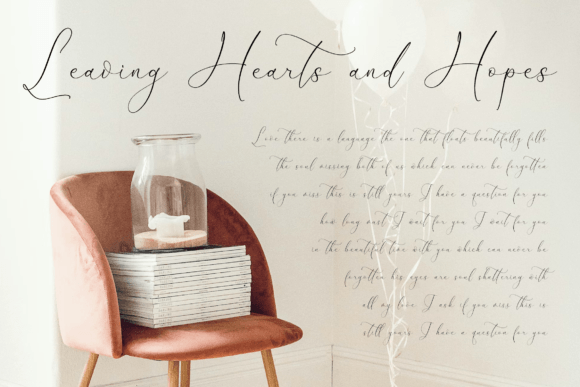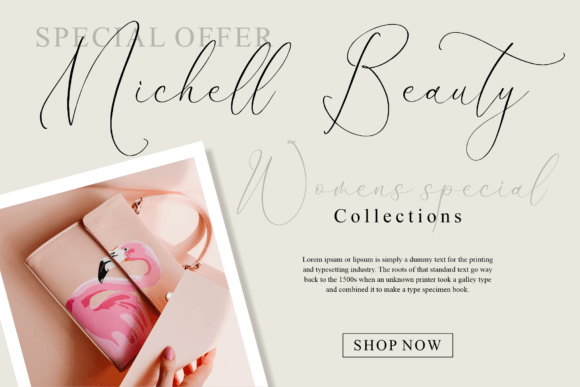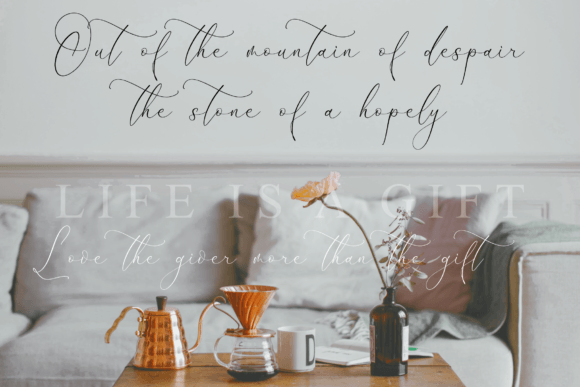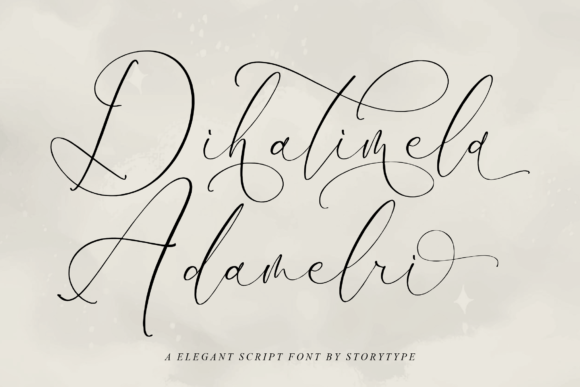
Introduction to Dihatimela Adamelri Font
Dihatimela Adamelri is a dazzling script font.
This font is neatly crafted and highly detailed Whatever the topic, this font will be a wonderful asset to your font library, as it has the potential to enhance any creation.
Dihatimela Adamelri Font offers exceptional quality and versatility, making it a valuable addition to your design toolkit. Whether you’re creating for personal projects or commercial use, Dihatimela Adamelri Font delivers professional results.